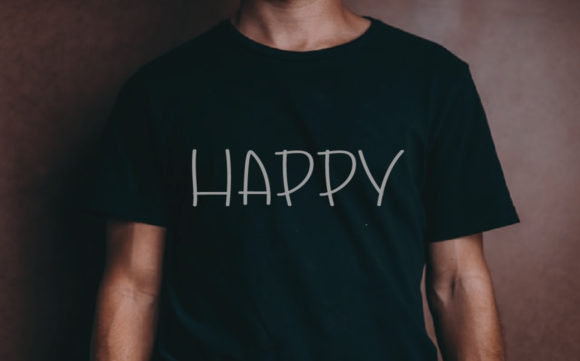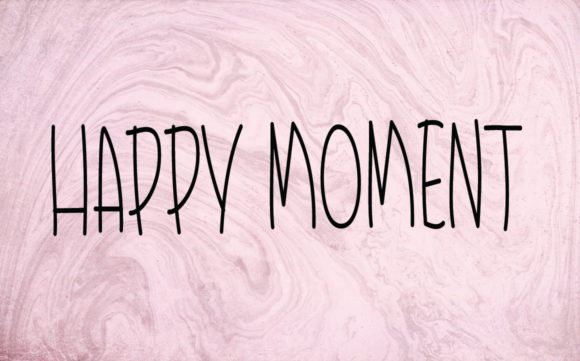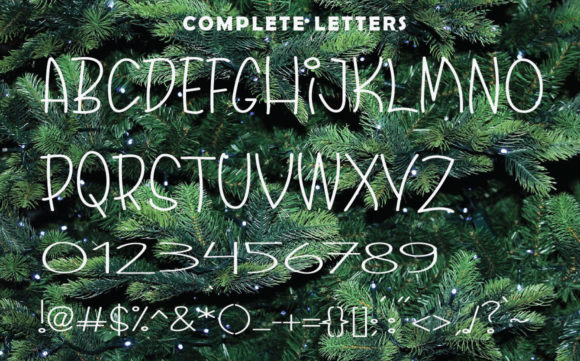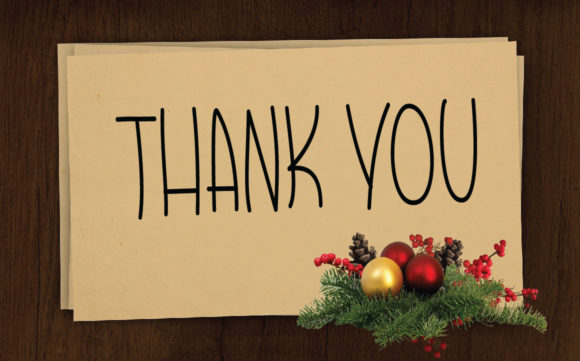
Introduction to Christmas Santaclaus Font
As the holiday season approaches, many designers find themselves in the midst of a creative frenzy, scrambling to find the perfect design elements to make their projects shine. It’s that magical moment when you stumble upon a font that embodies the spirit of the season, and your design begins to take shape. For me, that moment came when I discovered the Christmas Santaclaus Font – an uppercase handwritten font that exudes warmth and elegance.
This font’s unique combination of simplified lines and beautiful letterforms makes it a valuable resource for designers looking to add a touch of whimsy to their creative projects. Whether you’re working on a festive campaign, creating holiday-themed graphics, or simply want to add a personal touch to your designs, the Christmas Santaclaus Font is an excellent choice.
Key Features of Christmas Santaclaus Font
- High-quality, festive font perfect for holiday-themed creative projects and designs.
- Features a transparent background, allowing for easy layering and customization in design compositions.
- Designed with a bold and playful style, making it perfect for adding a touch of whimsy to holiday-themed designs.
- Unique and creative font, ideal for designers looking to add a personal touch to their holiday-themed designs and creative projects.
Honest Review: Christmas Santaclaus Font
I recently had the chance to work with the Christmas Santaclaus Font for a creative project, and I must say it’s been a delightful addition to my design resources. The font is perfect for adding a touch of festive magic to any project, and its free download option makes it easily accessible for designers on a budget.
One of the standout features of this font is its high-quality design, which looks great on both light and dark backgrounds. The transparent background option allows for seamless integration with other design elements, making it a versatile resource for designers.
- Perfect for festive-themed projects and holiday designs
- High-quality design that looks great on both light and dark backgrounds
- Transparent background option for seamless integration
- May not be suitable for non-festive projects
- Limited to a single font style (may not be as versatile as other fonts)
Overall, I’m impressed with the Christmas Santaclaus Font and would highly recommend it to designers looking for a high-quality, festive font for their creative projects.
The Christmas Santaclaus Font is perfect for holiday-themed designs, such as Christmas cards, invitations, and advertisements. It can also be used in general design projects where a fun and festive font is desired.